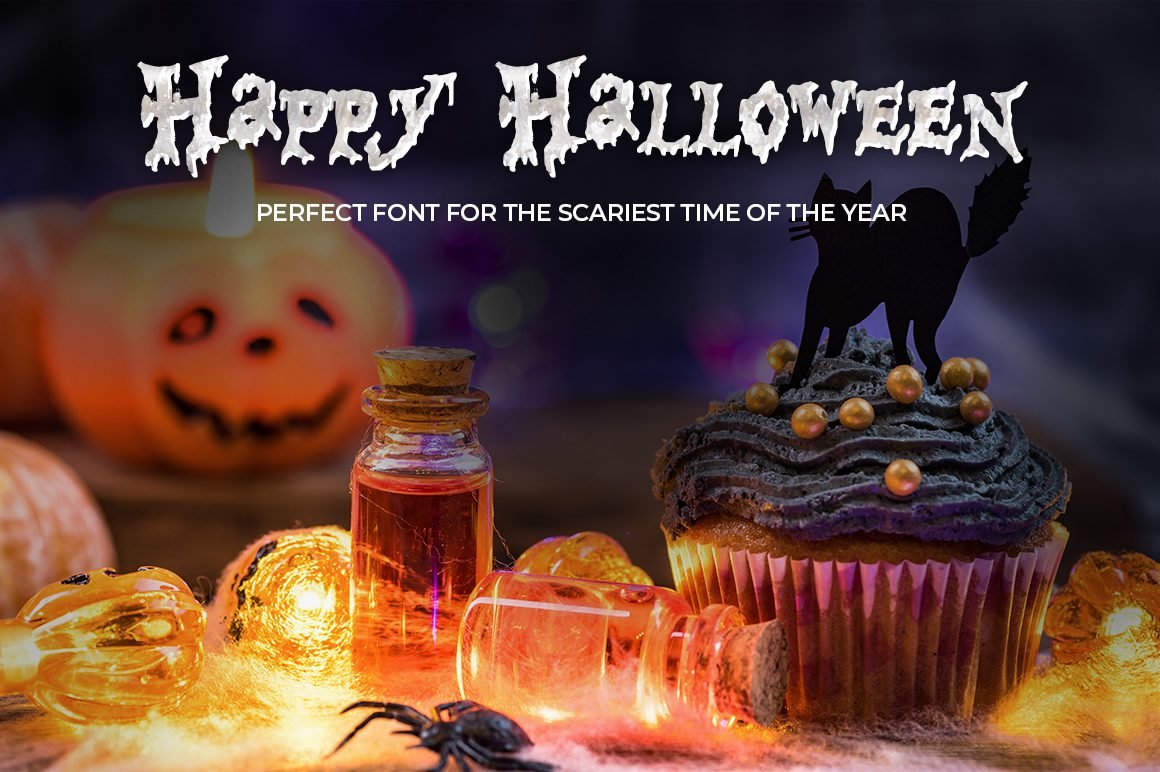
Free Happy Halloween Font!
Happy Halloween is the perfect free font for commercial use. It is for the scariest time of the year. Get inspired by its spooky appearance!
Preview of Free Happy Halloween Font: